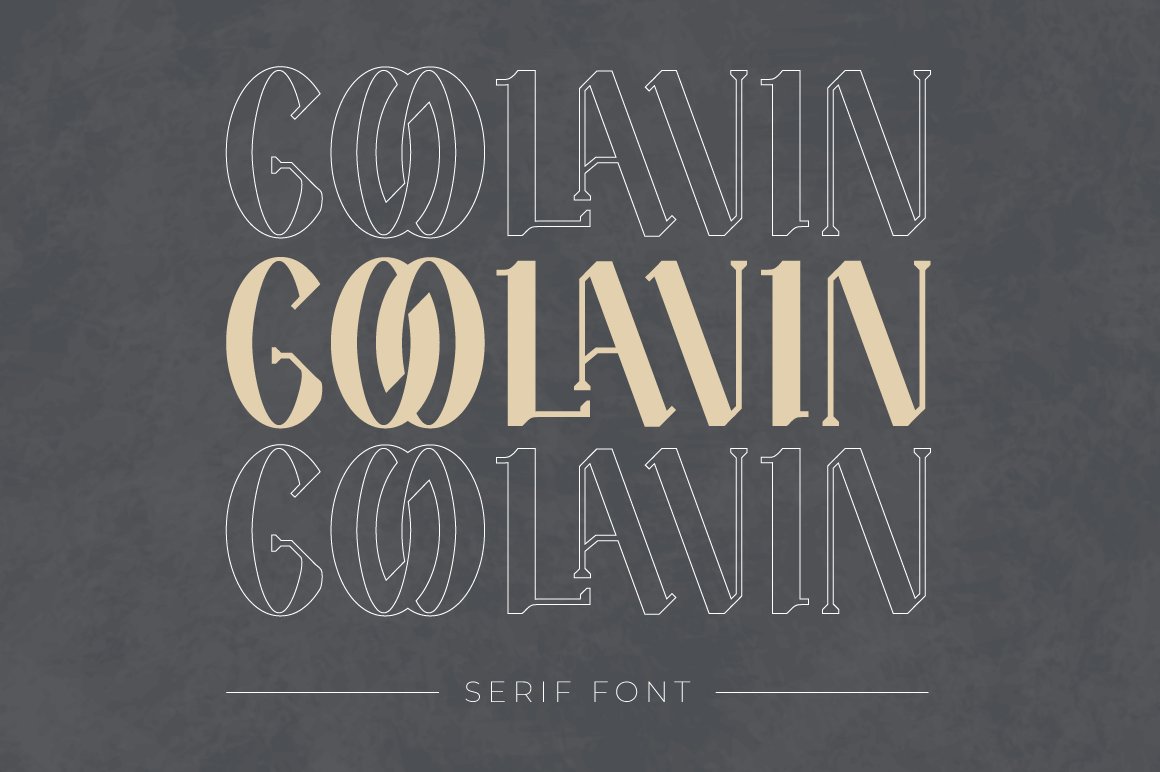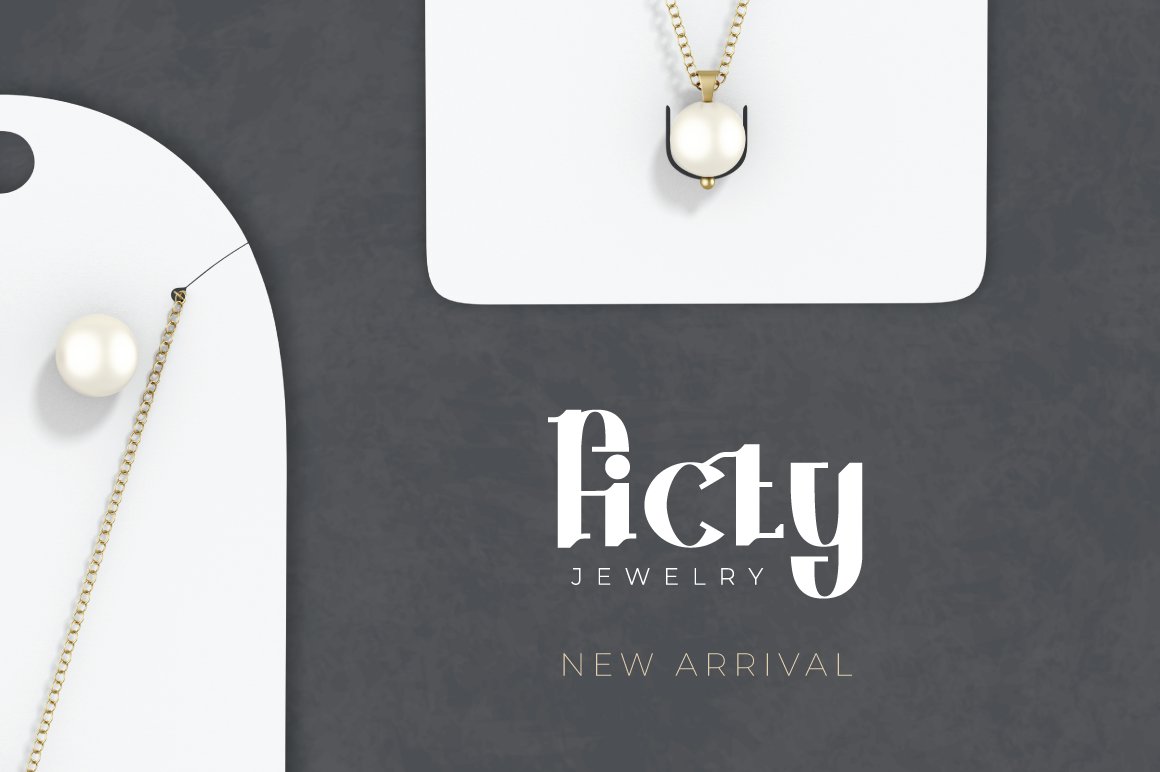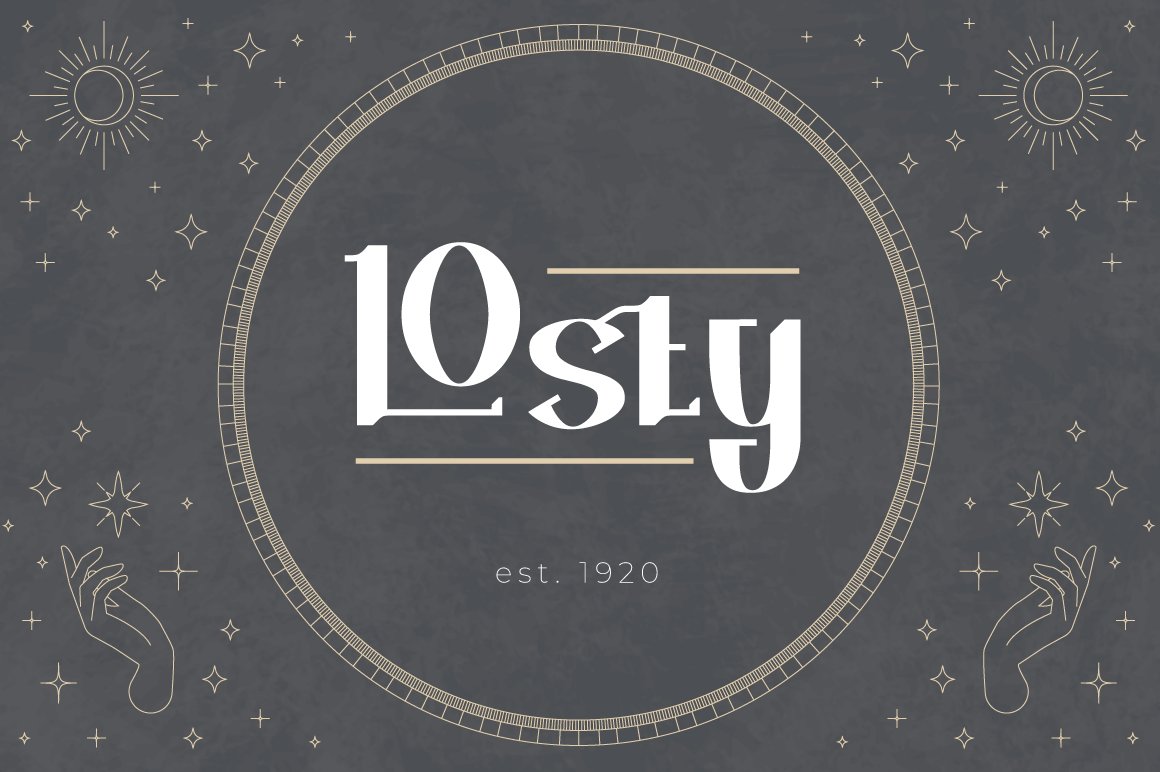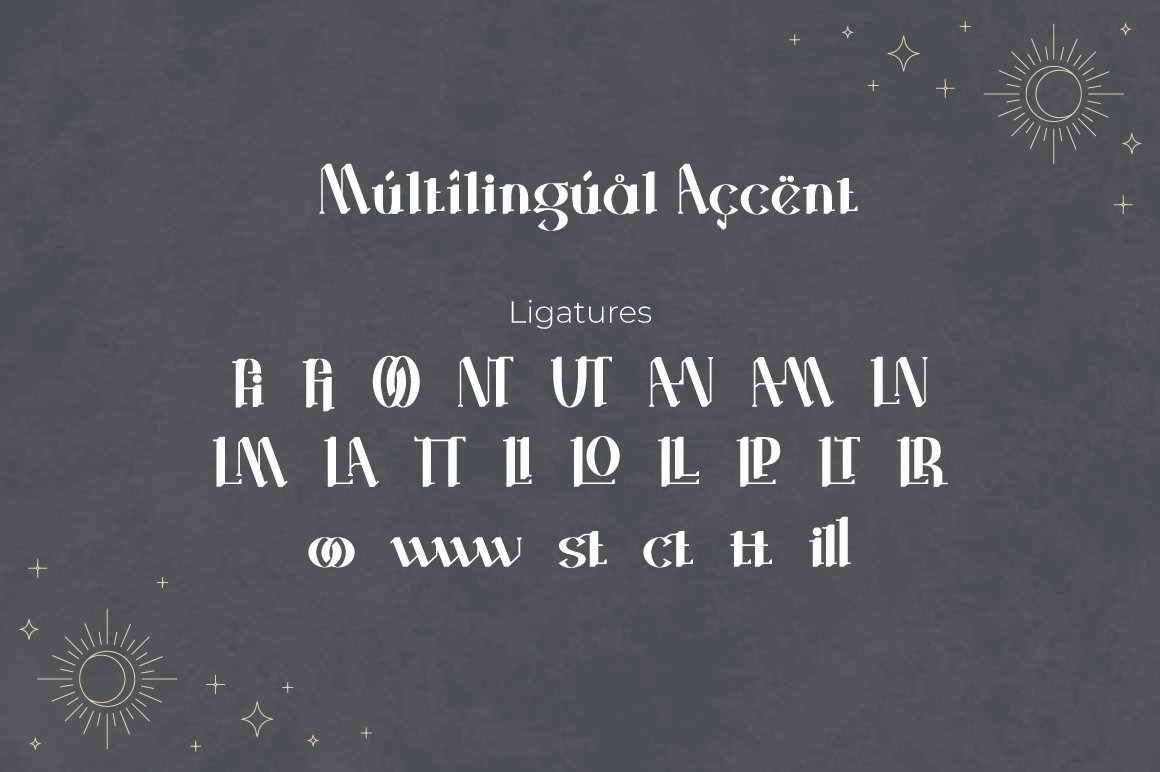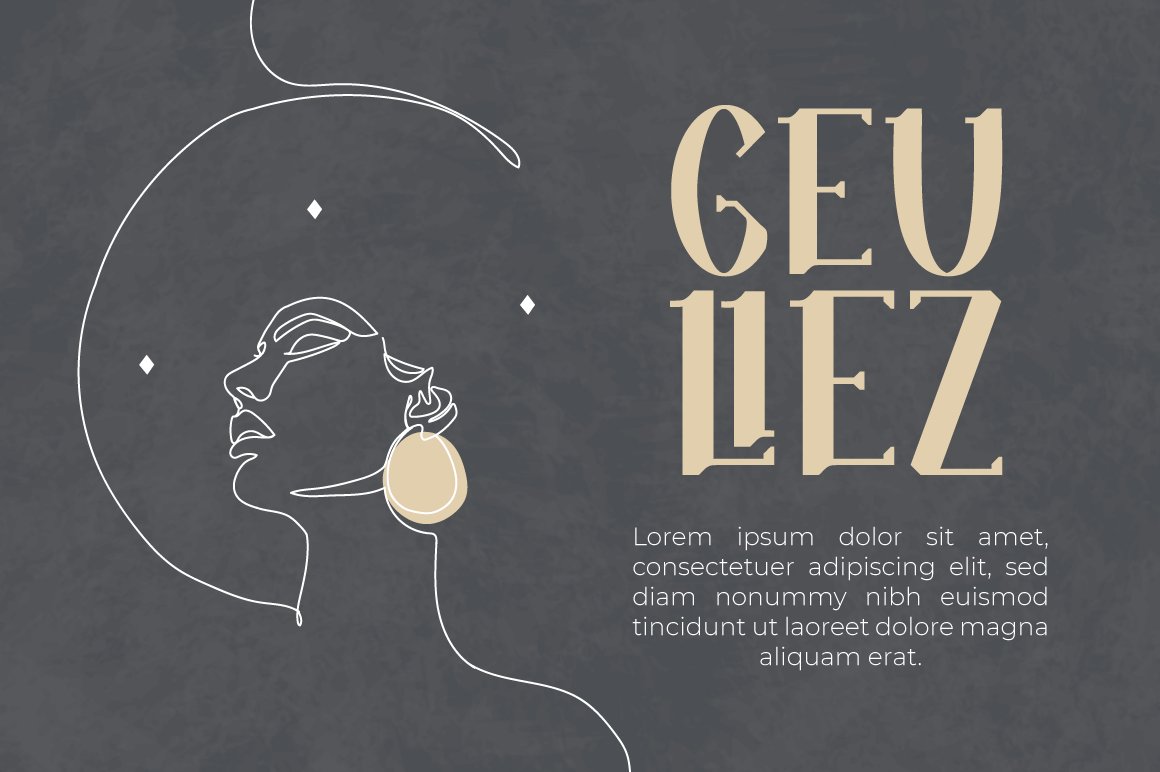
Goolavin is a Modern Minimal Serif typeface This font exudes a sense of power. It is elegant but strong and confident in appearance. Each letter has been carefully designed to create the best possible impression. It looks stunning on packaging, clothing, and any industry where elegance is needed without sacrificing boldness. that suitable for strong and modern looks on your works. Goolavin is perfect for sport product, branding, logo, invitation, stationery, product packaging, merchandise, monogram, blog design, game titles, cute style design, Book/Cover Title and more. Features : - Goolavin (.otf/.ttf) - Ligatures - Multilingual, US Roman, Latin 1 Support --- This Font Support Language: Afrikaans, Albanian,Asu, Basque, Bemba, Bena, Breton, Catalan, Chiga, Cornish, Danish, Dutch, English, Estonian, Faroese, Filipino, Finnish, French, Friulian, Galician, German, Gusii, Indonesian, Irish, Italian, Kabuverdianu, Kalenjin, Kinyarwanda, Luo, Luxembourgish, Luyia, Machame, Makhuwa-Meetto, Makonde, Malagasy, ManxMorisyen, North Ndebele, Norwegian Bokmål, Norwegian Nynorsk, Nyankole, Oromo, Portuguese, Quechua, Romansh, Rombo, Rundi, Rwa, Samburu, Sango, Sangu, Scottish Gaelic, Sena, Shambala, Shona, Soga, Somali, Spanish, Swahili, Swedish, Swiss German, Taita, Teso, Uzbek (Latin), Volapük, Vunjo, Zulu, Thank you for purchasing premium fonts from Attype Studio. Follow and explore our work on Pinterest & Instagram. If you have any question, don’t hesitate to contact us. Hope you enjoy with our font! Attype Studio